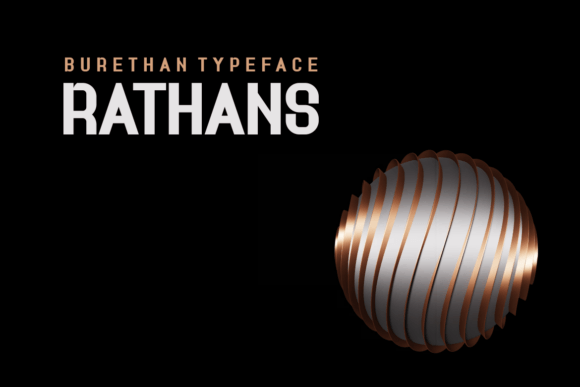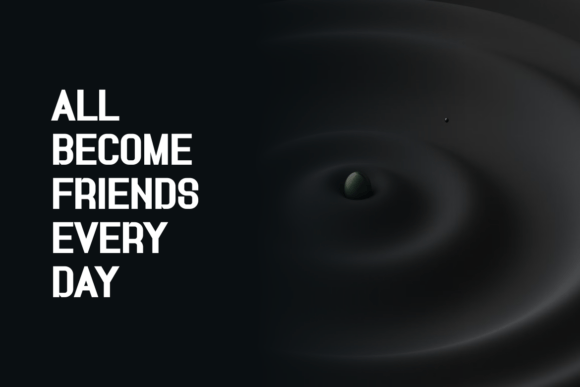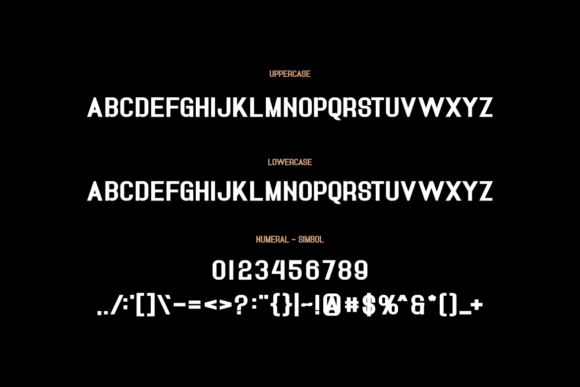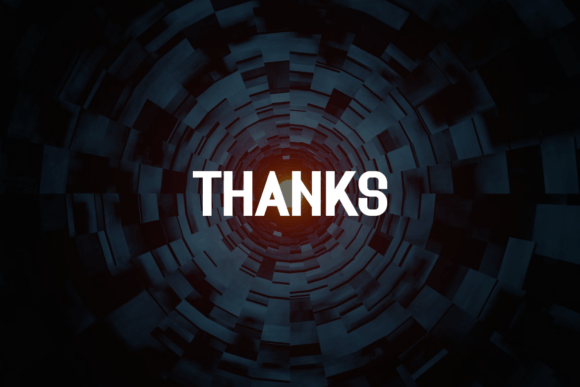
The Perfect Typography for a Bold Statement
As a designer, you know that sometimes the perfect font can make all the difference in bringing your vision to life. It’s that moment when you’re brainstorming ideas for a new project, and the right font suddenly pops into your head – it’s like a spark of creativity that sets everything in motion. For many designers, that spark is the Burethan Font.
Burethan Font is a versatile and modern sans-serif typeface that’s perfect for making a bold statement. With its clean lines and lack of decorative elements, it’s ideal for headlines, posters, and logos that need to grab attention. But what makes Burethan Font truly valuable is its simplicity and readability – it’s easy to use and gets the message across quickly and efficiently.
For designers, the Burethan Font is a valuable asset that can help take their work to the next level. Its strong, modern style makes it a great choice for a wide range of projects, from advertising to graphic design. With the Burethan Font, you can create powerful and effective designs that communicate your message with clarity and impact.
Burethan Font Key Features
- Font Family: Burethan is a sans-serif font family designed for digital use.
- Unique Characteristics: Features a clean, modern design with a subtle rounded edge, making it suitable for a wide range of applications, from body text to display headings.
Burethan Font Review
At first glance, the Burethan Font catches the eye with its elegant and refined aesthetic ✨. It’s perfect for creating a sophisticated and high-end look in your designs. The font’s curved lines and subtle details evoke a sense of luxury and sophistication.
The font also features a wide range of weights and styles, making it easy to customize and adapt to various design needs ✨. From headings to body text, Burethan Font offers a versatile solution for designers looking to elevate their work.
- ⚠️ Limited language support: Burethan Font may not be optimized for certain languages, which could lead to display issues or inconsistent formatting.
- ⚠️ Not ideal for informal or casual designs: The font’s refined aesthetic may not be the best fit for playful or laid-back designs, as it can come across as too formal.
Overall, the Burethan Font is a solid choice for designers looking to create high-end, sophisticated designs ✨. While it may have some limitations, its versatility and elegant aesthetic make it a great addition to any design toolkit.
The Burethan font is ideal for modern designs, including:
- Corporate branding
- Website design
Alternatives to Burethan Font
Open Sans is a clean, modern sans-serif font that is highly legible and versatile. It is suitable for body text, headings, and titles. When to use: For digital products, apps, and websites where a neutral, approachable feel is desired.
Comparison: Burethan Font is more ornate and decorative, while Open Sans is sleek and minimalist. If you want a font that is easy to read and doesn’t distract from the content, Open Sans is a better choice.
Lato is a sans-serif font with a friendly, approachable feel. It is suitable for body text, headings, and titles. When to use: For branding, marketing materials, and websites where a humanistic touch is desired.
Comparison: Burethan Font has a more dramatic flair, while Lato is more understated and elegant. If you want a font that conveys warmth and approachability, Lato is a better choice.
Montserrat is a geometric sans-serif font that is highly legible and versatile. It is suitable for body text, headings, and titles. When to use: For digital products, apps, and websites where a modern, urban feel is desired.